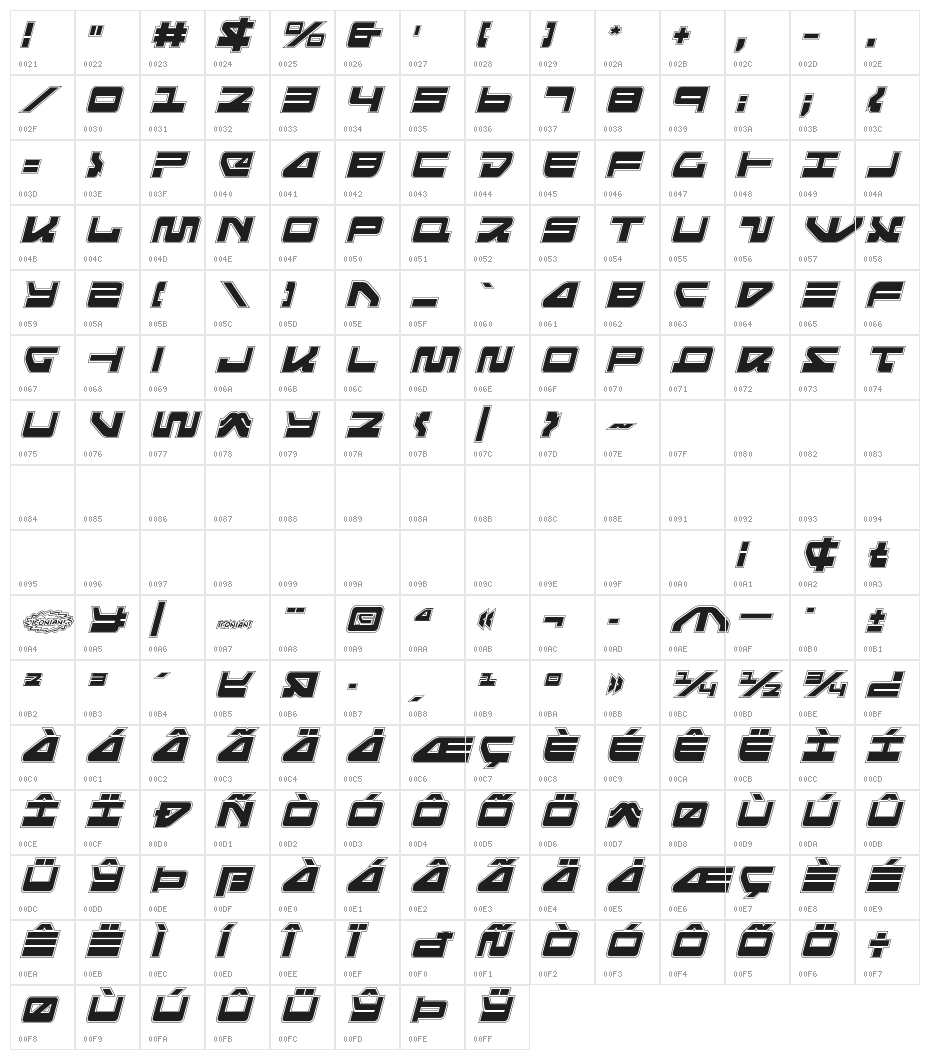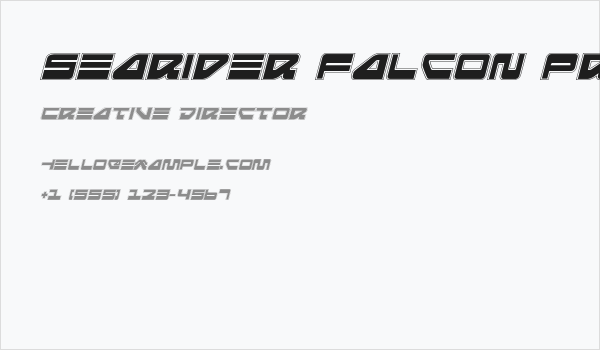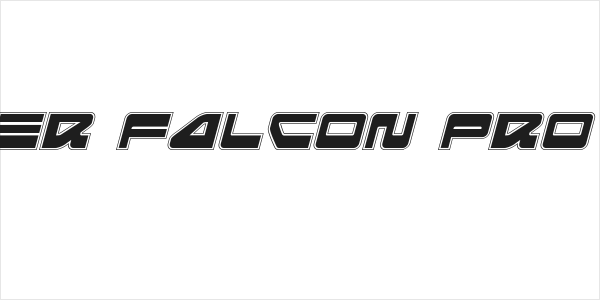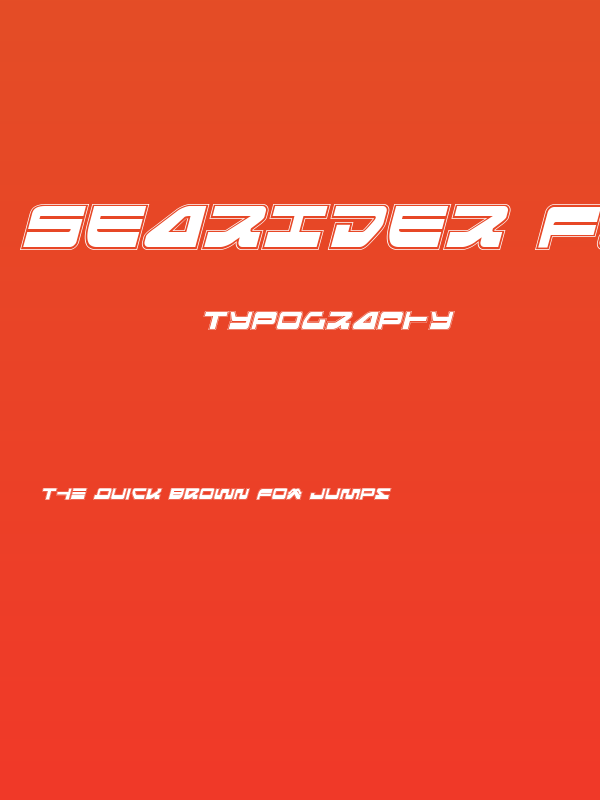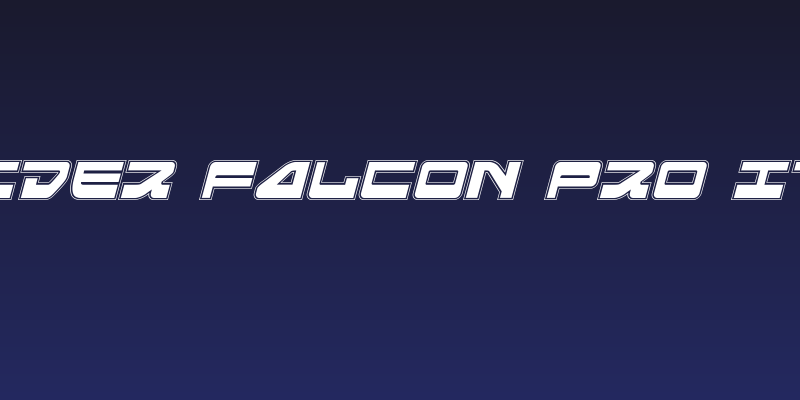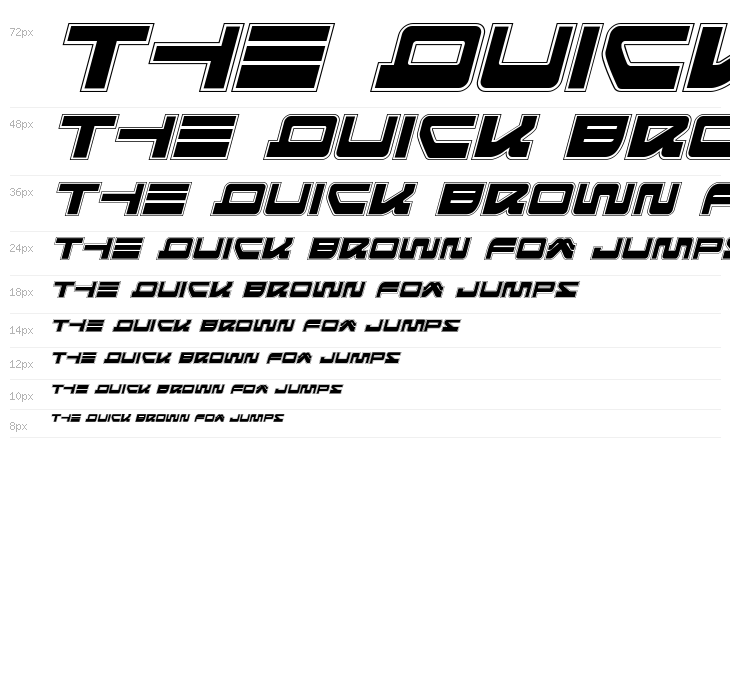
Searider Falcon Pro Italic Font
Searider Falcon Pro Italic Description
This font features a futuristic and dynamic design, characterized by its bold and angular letterforms. The italic style adds a sense of motion and speed, making it ideal for projects that require a modern and energetic look. The characters are outlined with a double-layer effect, enhancing their visual impact and creating a sense of depth. The uppercase and lowercase letters maintain a consistent style, with sharp edges and geometric shapes. The numbers and special characters follow the same design principles, ensuring uniformity across all elements.
| Proposed Projects | Ideal for sci-fi themed designs, video game titles, sports branding, and dynamic posters. |